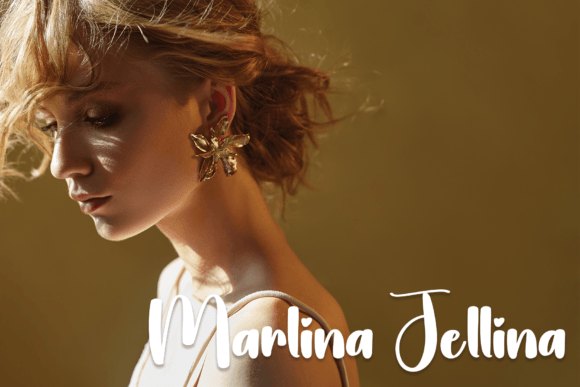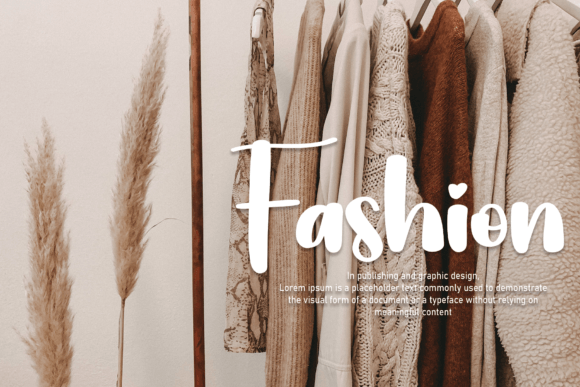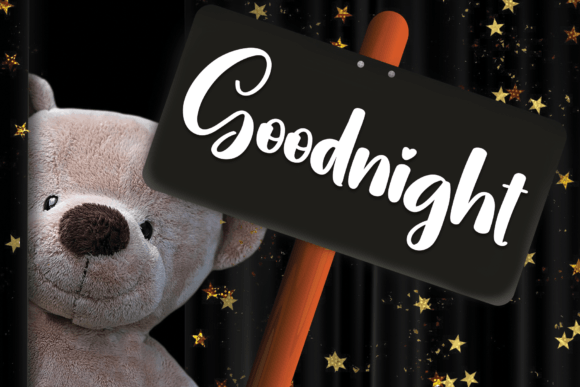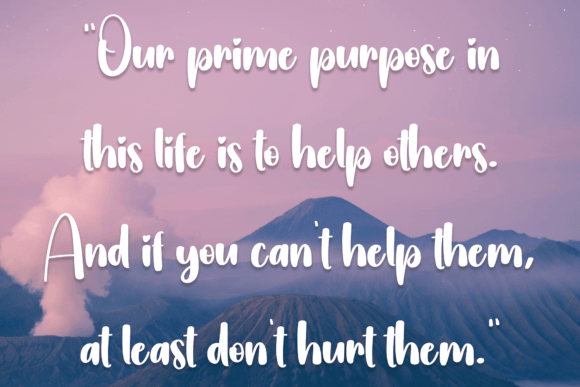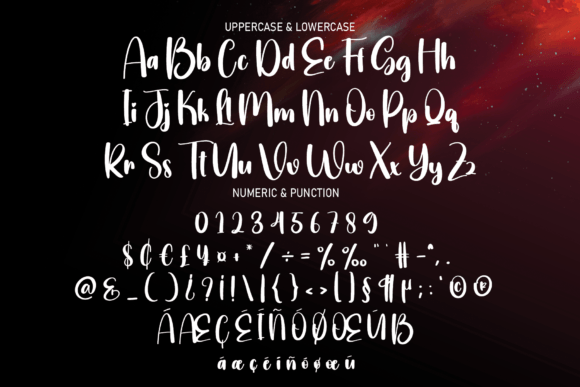
The Graphics Font: A Handwritten Gem for Creative Projects
I’ll never forget the time I was working on a wedding invitation design project, and my client asked for a font that was both elegant and playful. I scoured the internet, trying out font after font, but nothing seemed quite right. That was until I stumbled upon the Graphics Font. Its unique, handwritten style immediately caught my eye, and I knew I had found the perfect fit. In this article, I’ll share my experience with the Graphics Font, its features, and how to make the most of it in your creative projects.
- ✨ Unique and elegant handwritten style
- ✅ Perfect for a variety of creative projects, including wall displays, wedding invitations, social media post logos, advertisements, product packaging, and more
- 💫 Highly legible, even at small sizes
- 🎨 Versatile and adaptable to different design styles
While the Graphics Font is an excellent choice for many projects, there are a few things to keep in mind:
- ⚠️ Some letters may require manual kerning for optimal spacing
- 🤔 Limited availability of stylistic alternates, which may limit design flexibility
The Graphics Font was designed by a talented typographer who drew inspiration from traditional handwritten scripts. The font’s unique style is a result of careful craftsmanship and attention to detail. While the designer’s story is shrouded in mystery, their passion for typography is evident in every letter and curve of the Graphics Font.
Q: What type of projects is the Graphics Font best suited for?
A: The Graphics Font is perfect for a variety of creative projects, including wall displays, wedding invitations, social media post logos, advertisements, product packaging, and more.
Q: Is the Graphics Font available in different styles or weights?
A: The Graphics Font is available in a single style, but its versatility and adaptability make it suitable for a wide range of design applications.